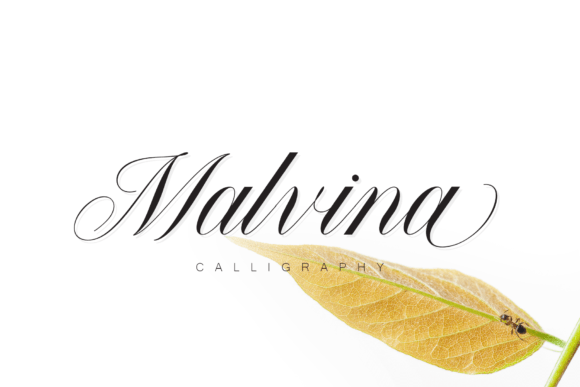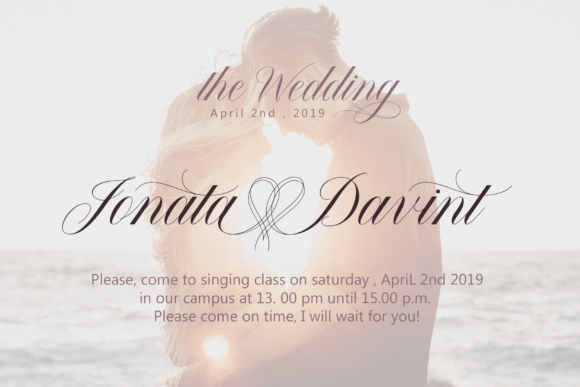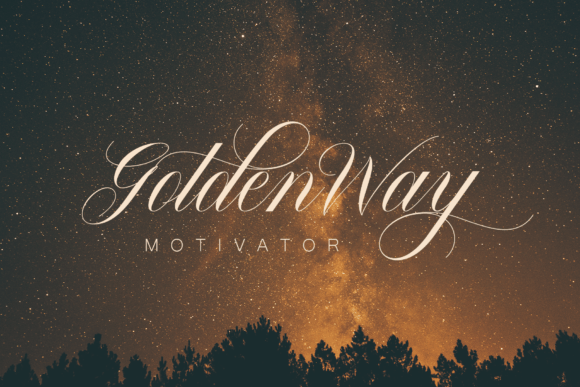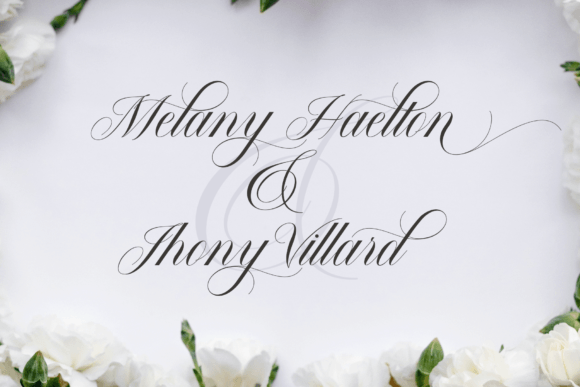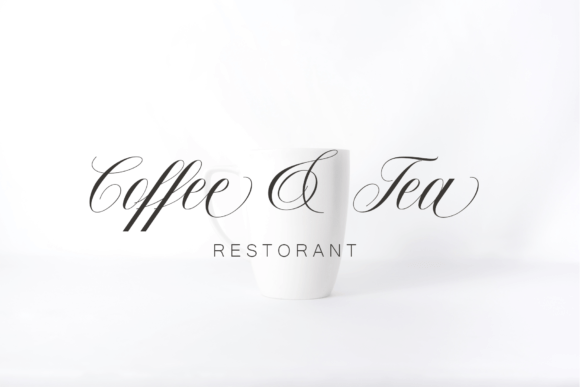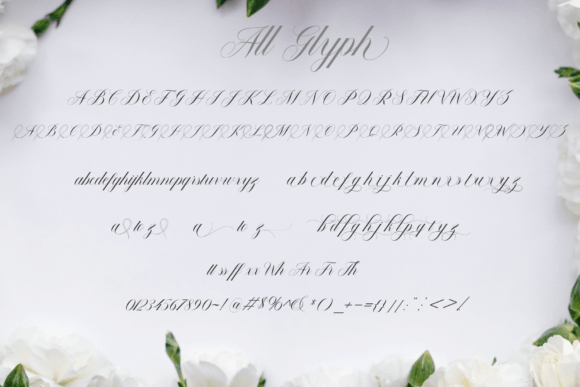
Malvina Font
About Malvina Font
Malvina is a charming and delicate handwritten font that exudes sweetness and elegance. With its dainty and joyful characteristics, this font is perfectly suited for creating romantic and personalized elements, especially for wedding invitations, cards, and any design that requires a tender and whimsical touch.
The sweet and delicate nature of Malvina is evident in its carefully crafted letterforms. The font carries a sense of grace and lightness, making it an ideal choice for projects that demand a romantic and refined aesthetic. Whether used in wedding stationery or other design contexts, Malvina brings a personalized and joyful vibe to the forefront.
Malvina’s charm lies in its ability to convey a sense of warmth and happiness. This makes it a perfect fit for celebratory occasions, particularly those associated with love and romance. Whether you’re designing wedding invitations, greeting cards, or any project that calls for a touch of romance, Malvina adds a delightful and personalized touch.
Incorporate Malvina into your design projects and witness how its sweet and delicate handwritten style elevates your creations. From the elegance of wedding invitations to the tenderness of cards, this font provides a versatile and charming foundation for a variety of romantic and celebratory designs. Let Malvina be the font that adds a touch of romance and personalization to your creative endeavors.